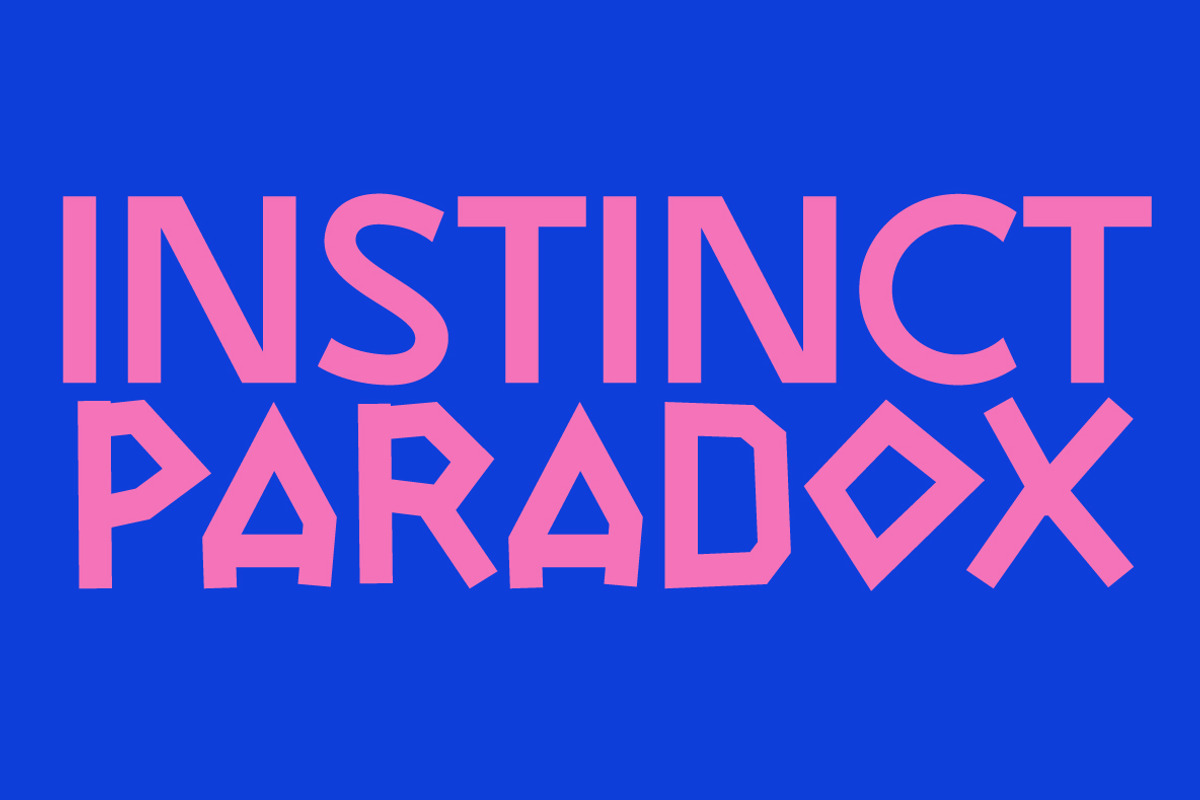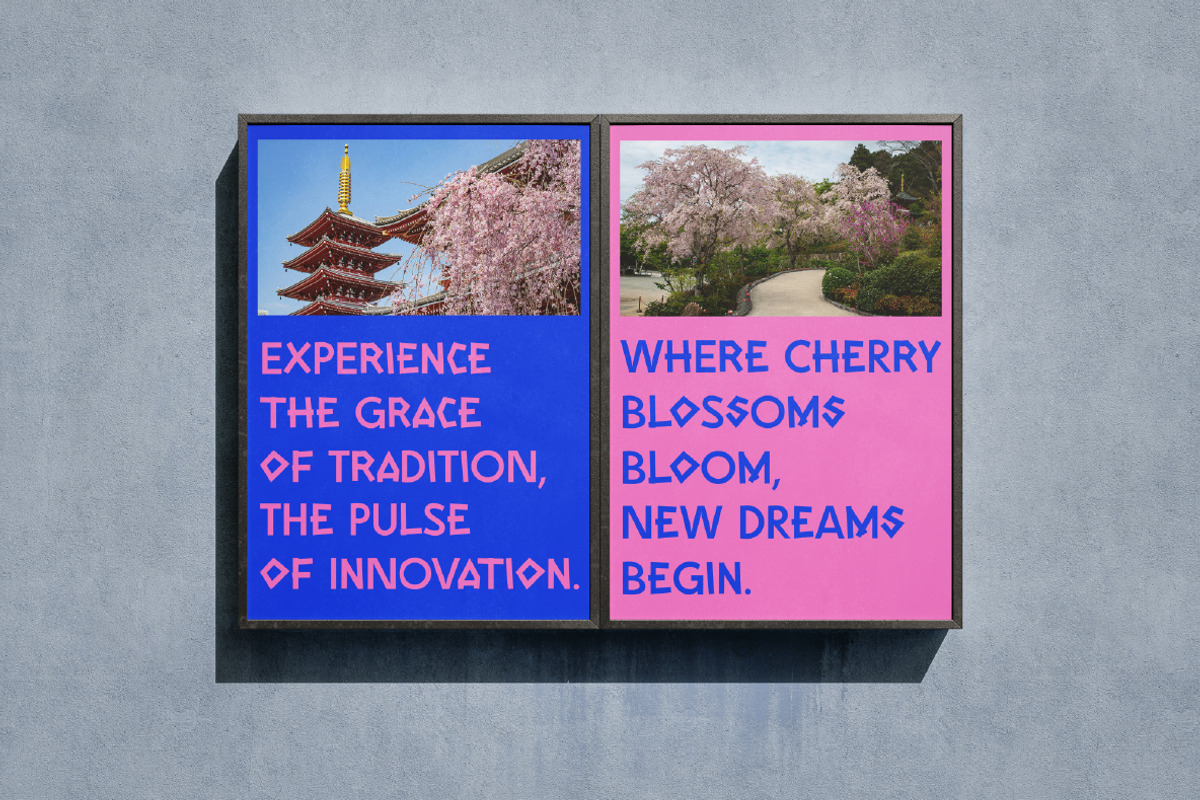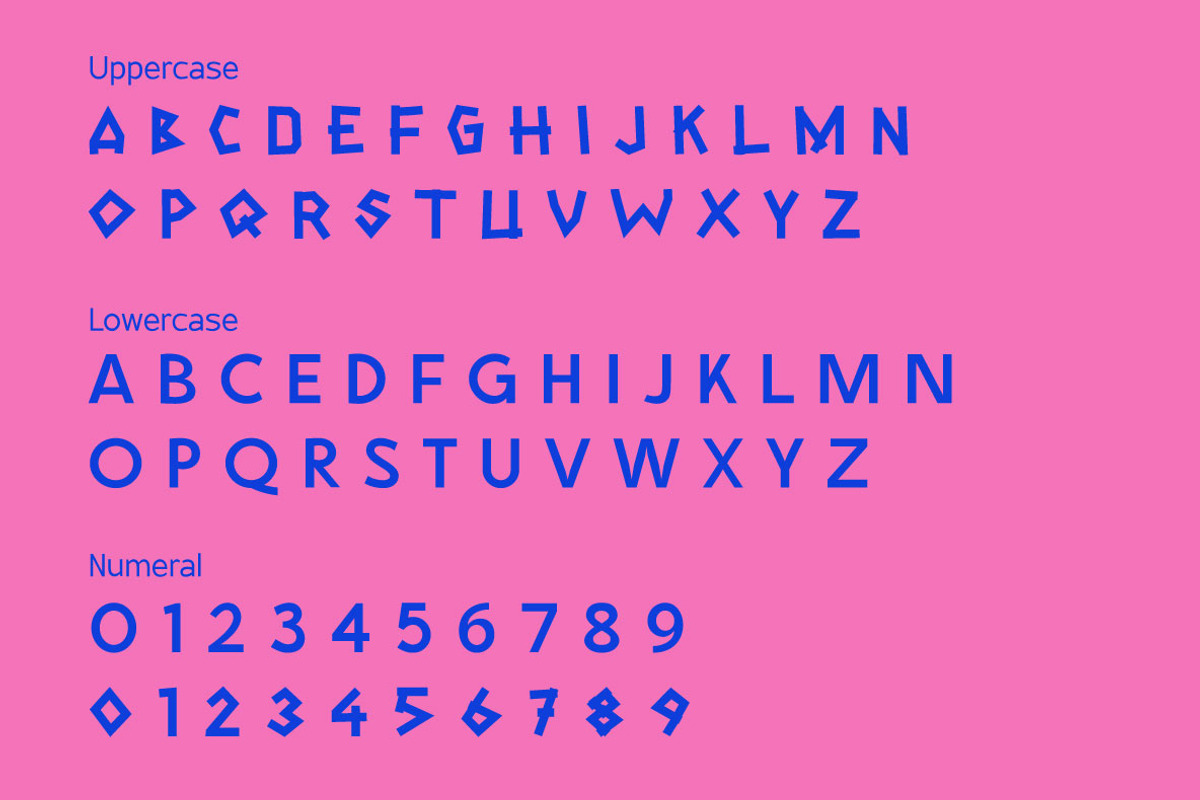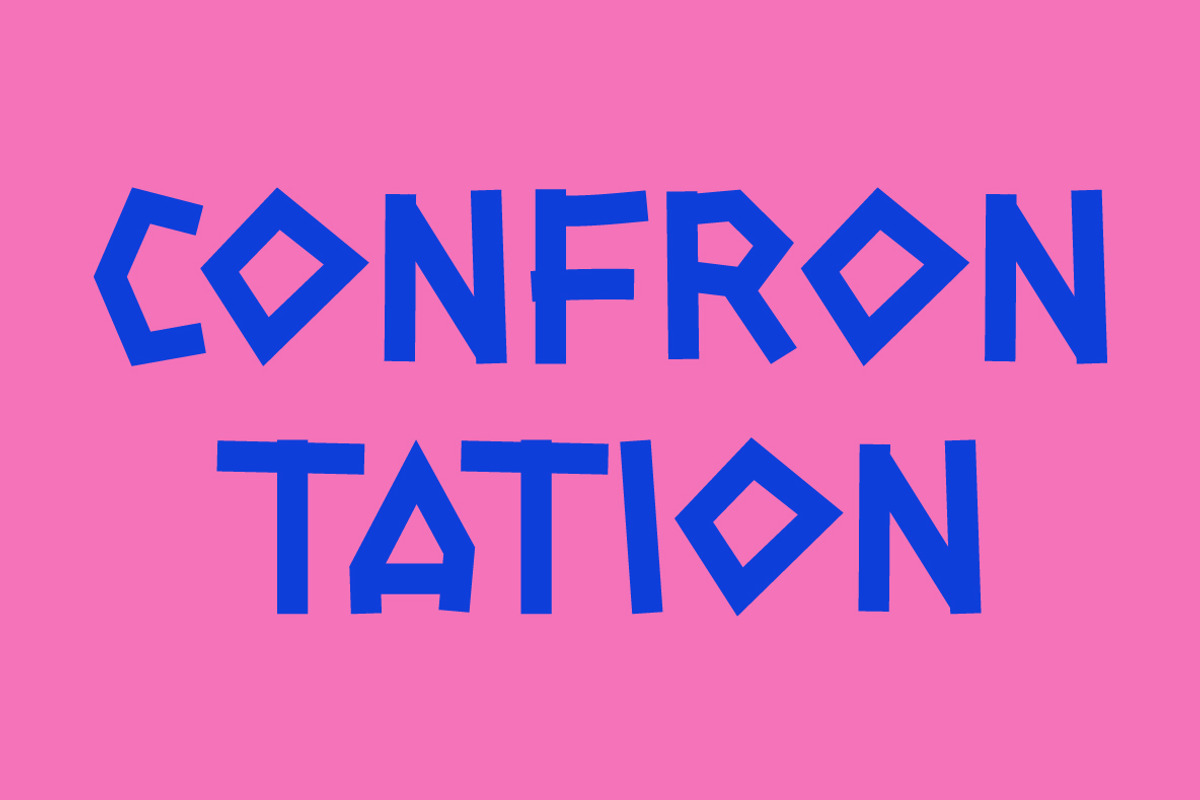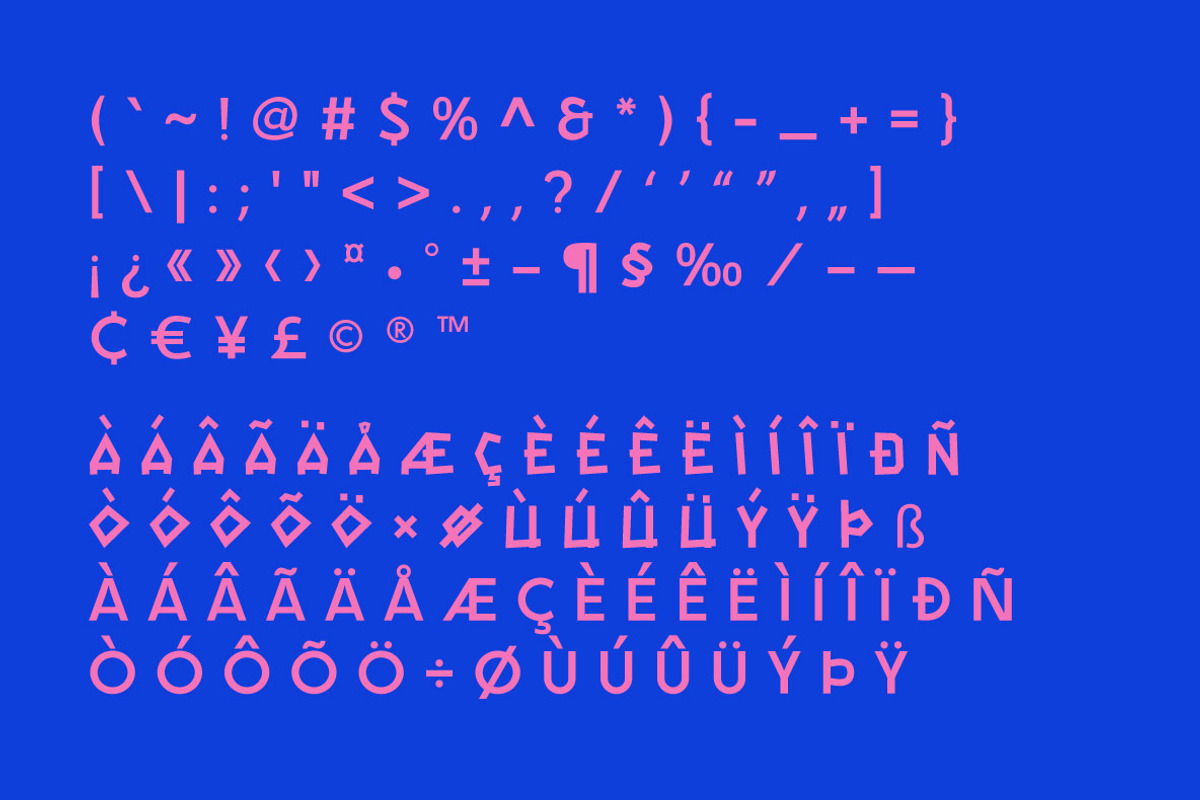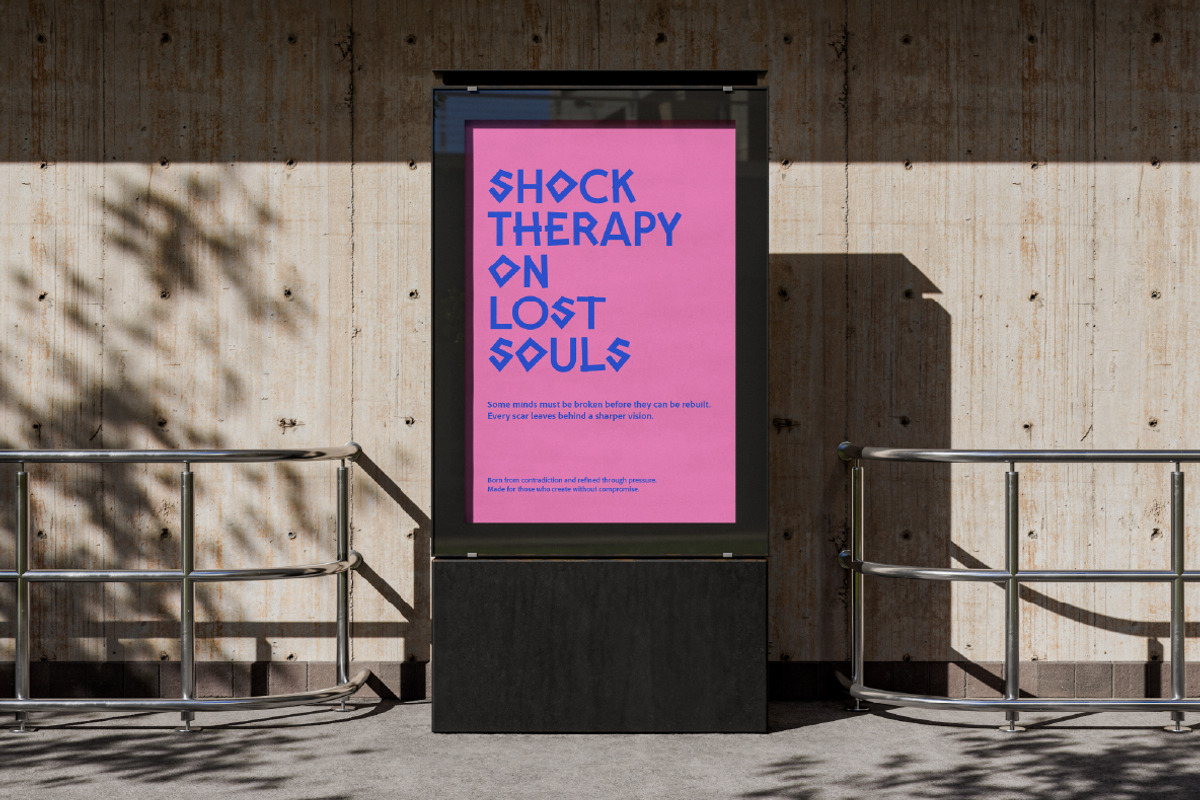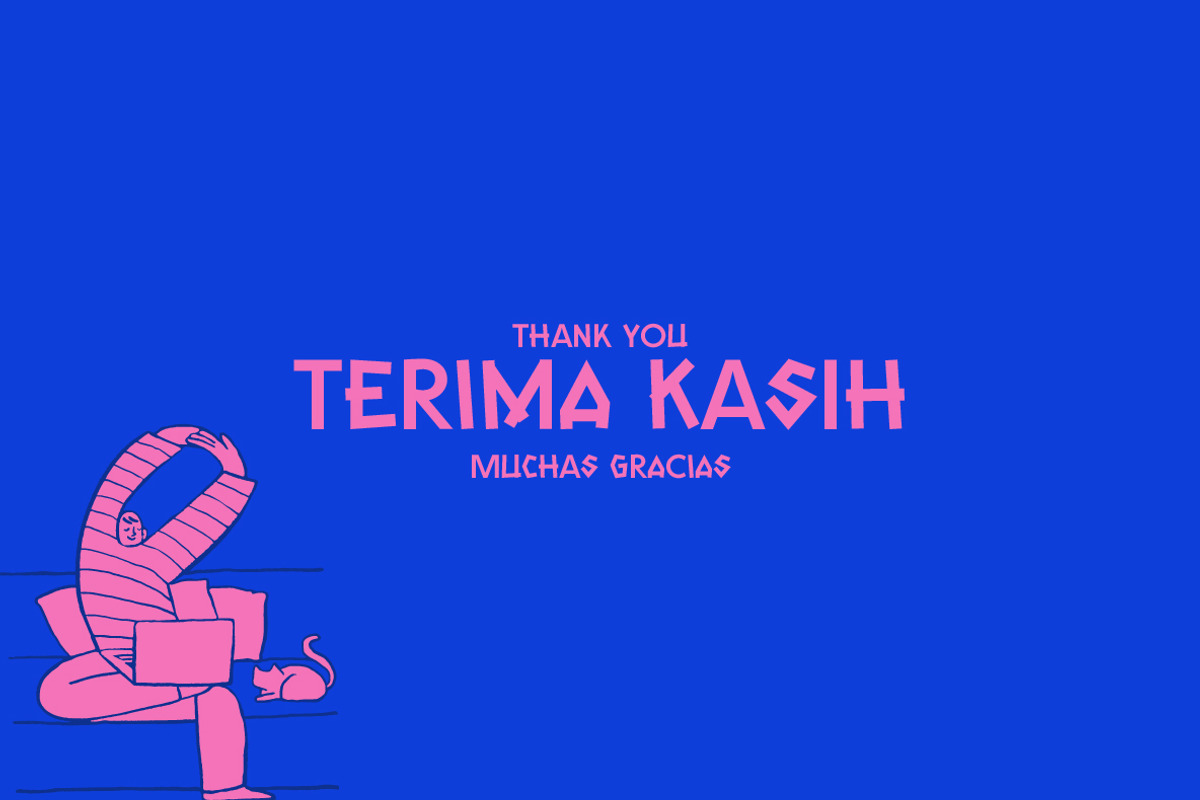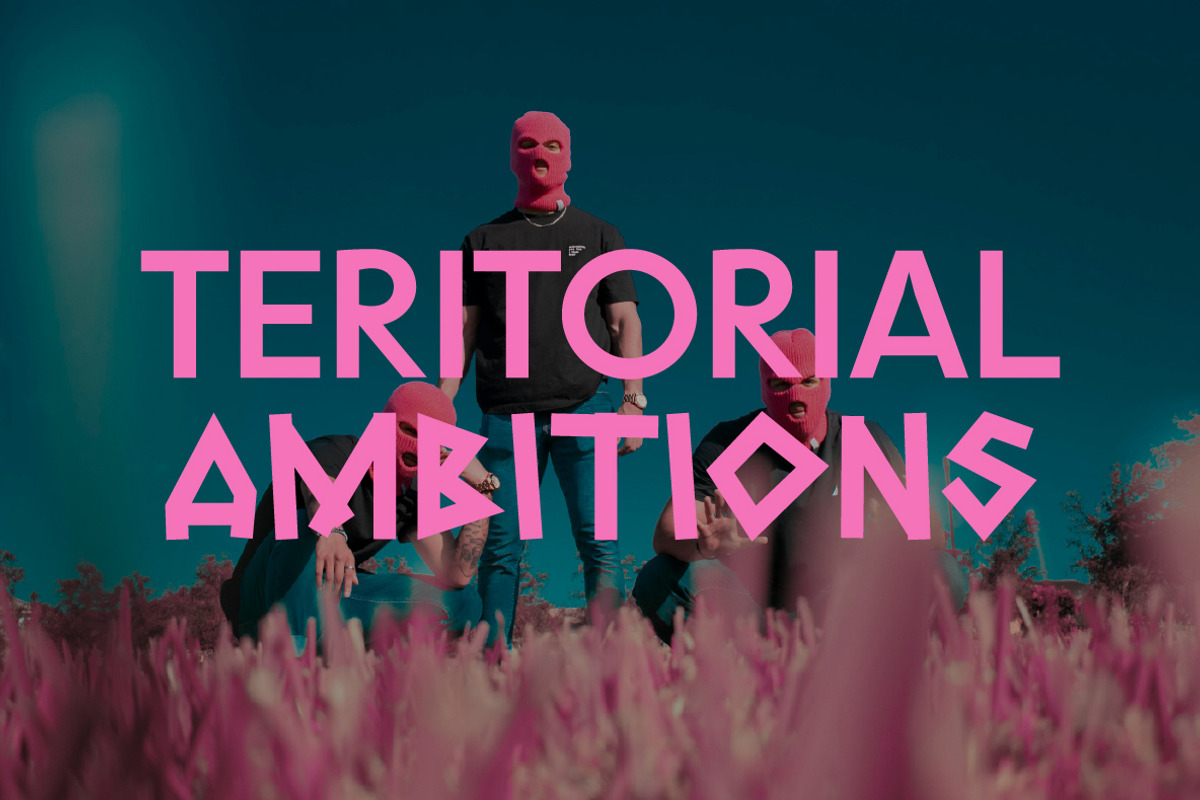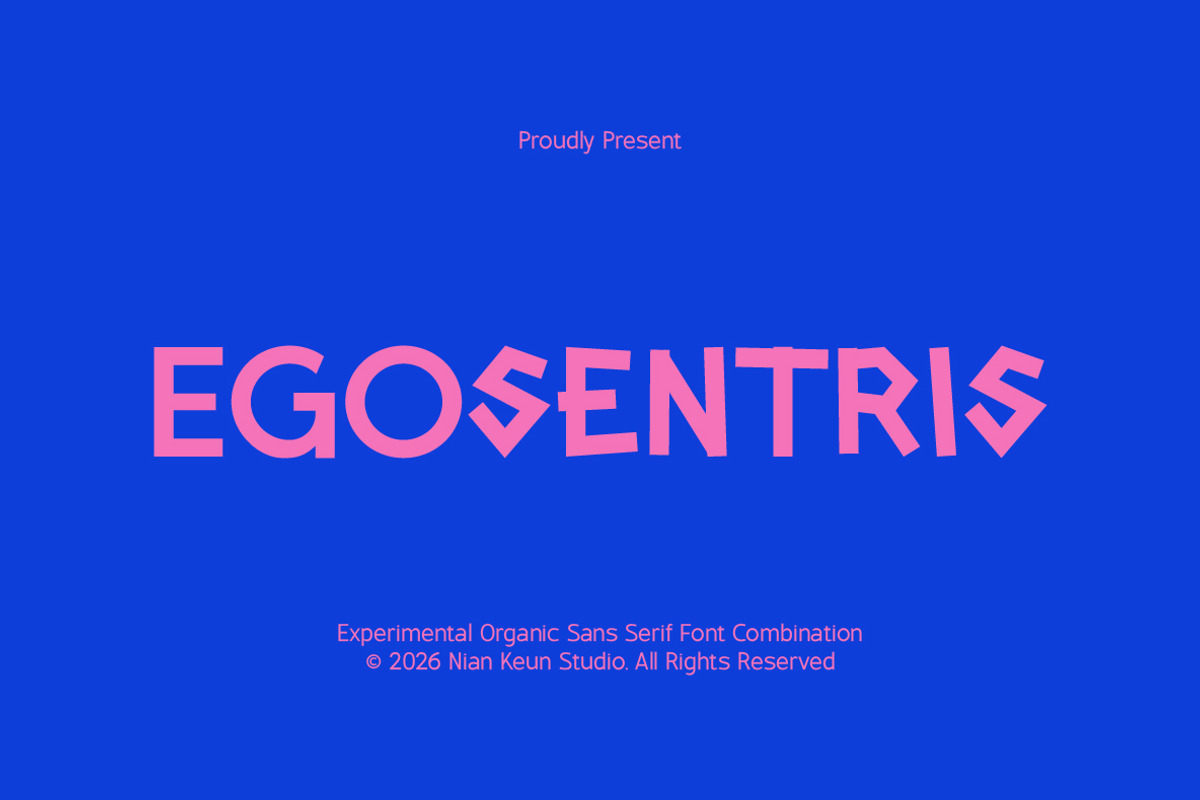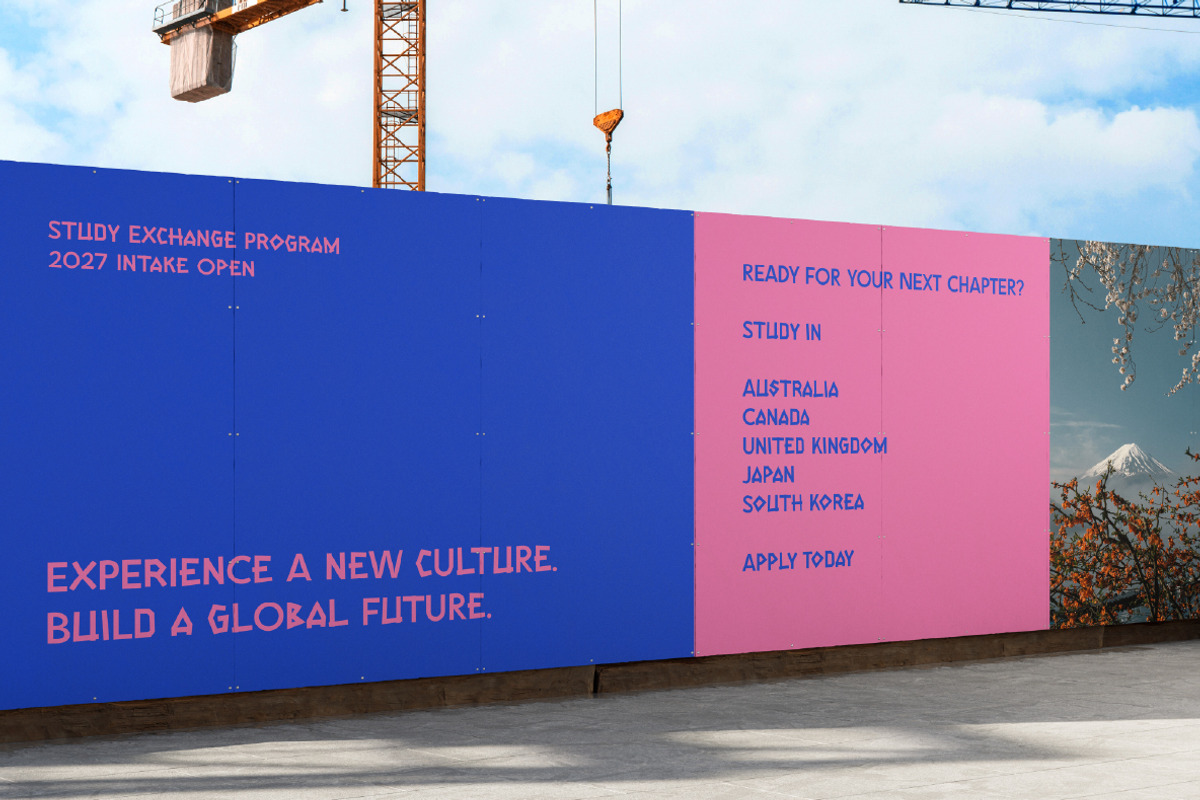
Egosentris - Experimental Sans Serif
Egosentris is an experimental display sans serif font created with unconventional shapes, angular details, and playful geometric structures. Its distinctive letterforms combine clean strokes with unexpected cuts and asymmetrical elements, giving the typeface a bold, quirky, and expressive personality.
Designed to stand out in large-scale typography, Egosentris brings an artistic and contemporary character to headlines, branding, posters, editorial compositions, packaging, and visual identities. Its unusual construction makes it especially suitable for designers looking to create typography that feels experimental, energetic, and memorable.
Experimental branding & logo design
Posters & bold headlines
Editorial & magazine layouts
Fashion & creative identities
Packaging & labels
Album covers & music artwork
Social media & digital graphics
Art projects & creative campaigns